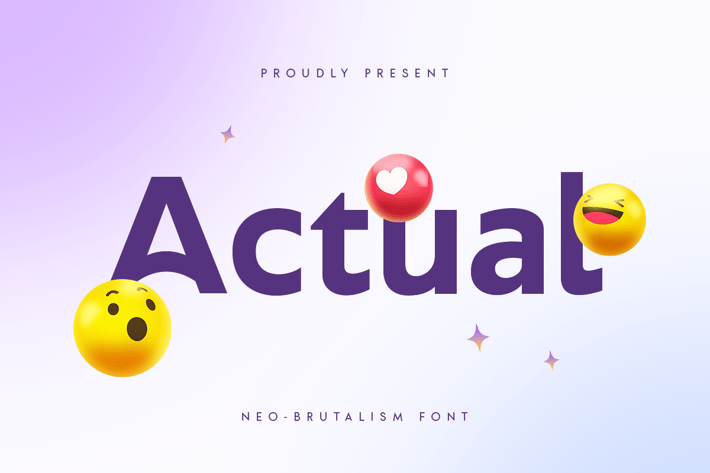
Actual - Neo-Brutalism Font
Actual, Neo Brutalism Font is a modern font with minimalist and Corporate like a Cinematic style, font that you can combine to get any variations and unique shapes easily just in seconds with choose characters of them. It is a sans serif font with minimalist style that perfect for Social Media Headline, Thumbnail title, branding projects, logo, poster designs, social media posts, advertisements, product packaging, product designs, label, photography, watermark, invitation, stationery, and any projects, it makes with a high level of legibility.
Unique Characters